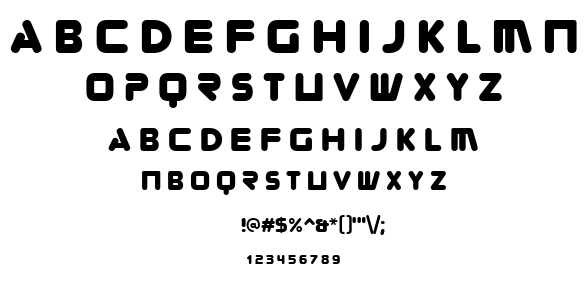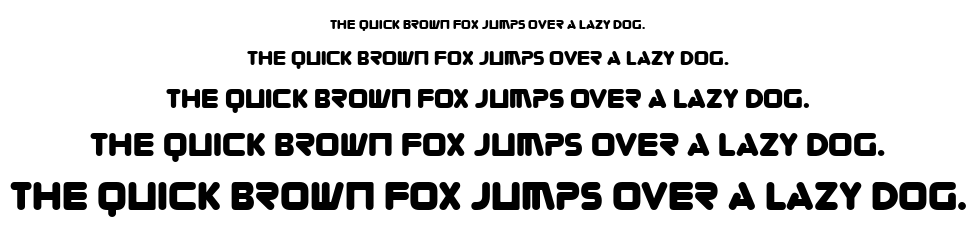
Zorque is a rounded, square headline font with an text-based adventure hook. Don’t forget to read the files inside the zip for details. Updated in 2012.